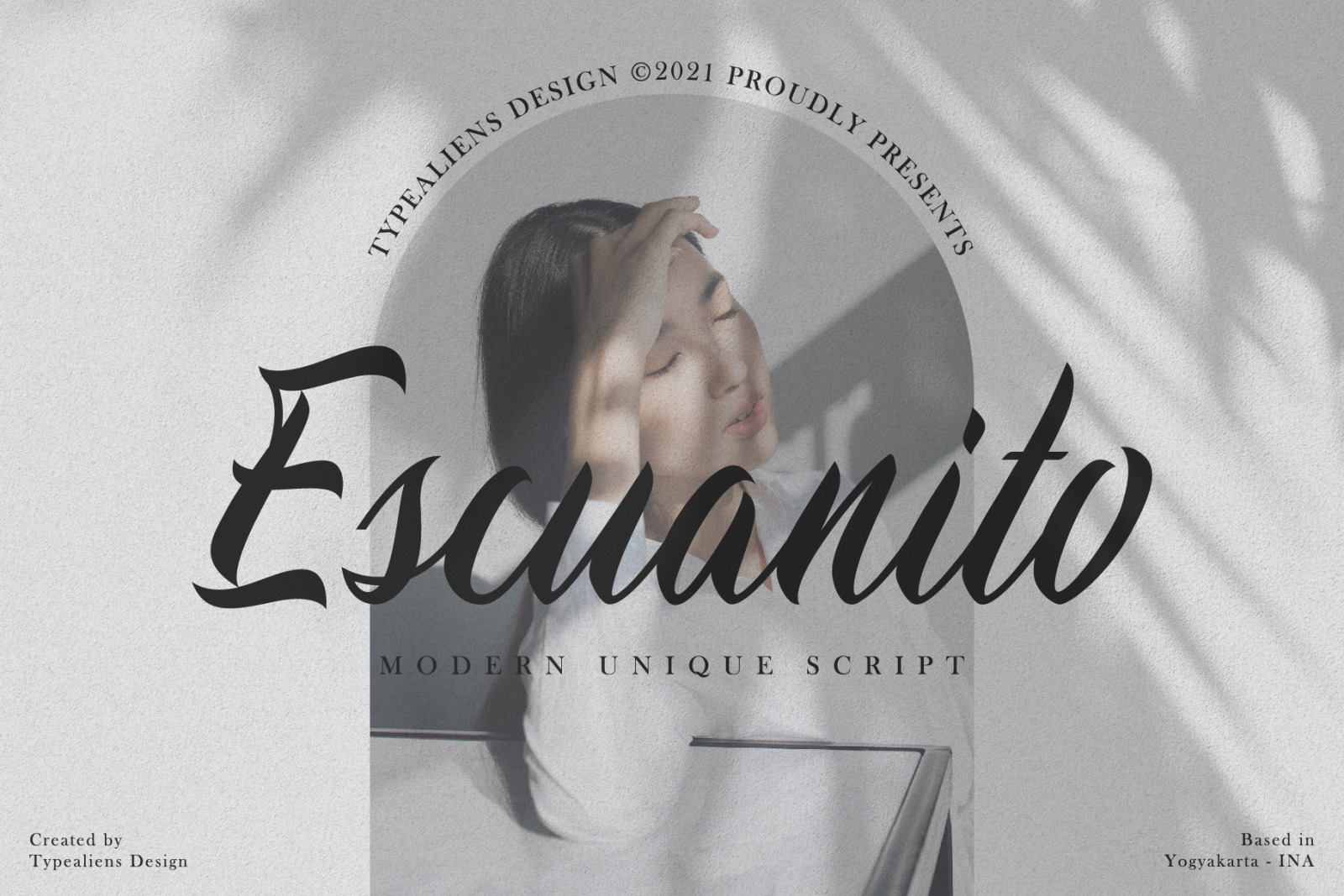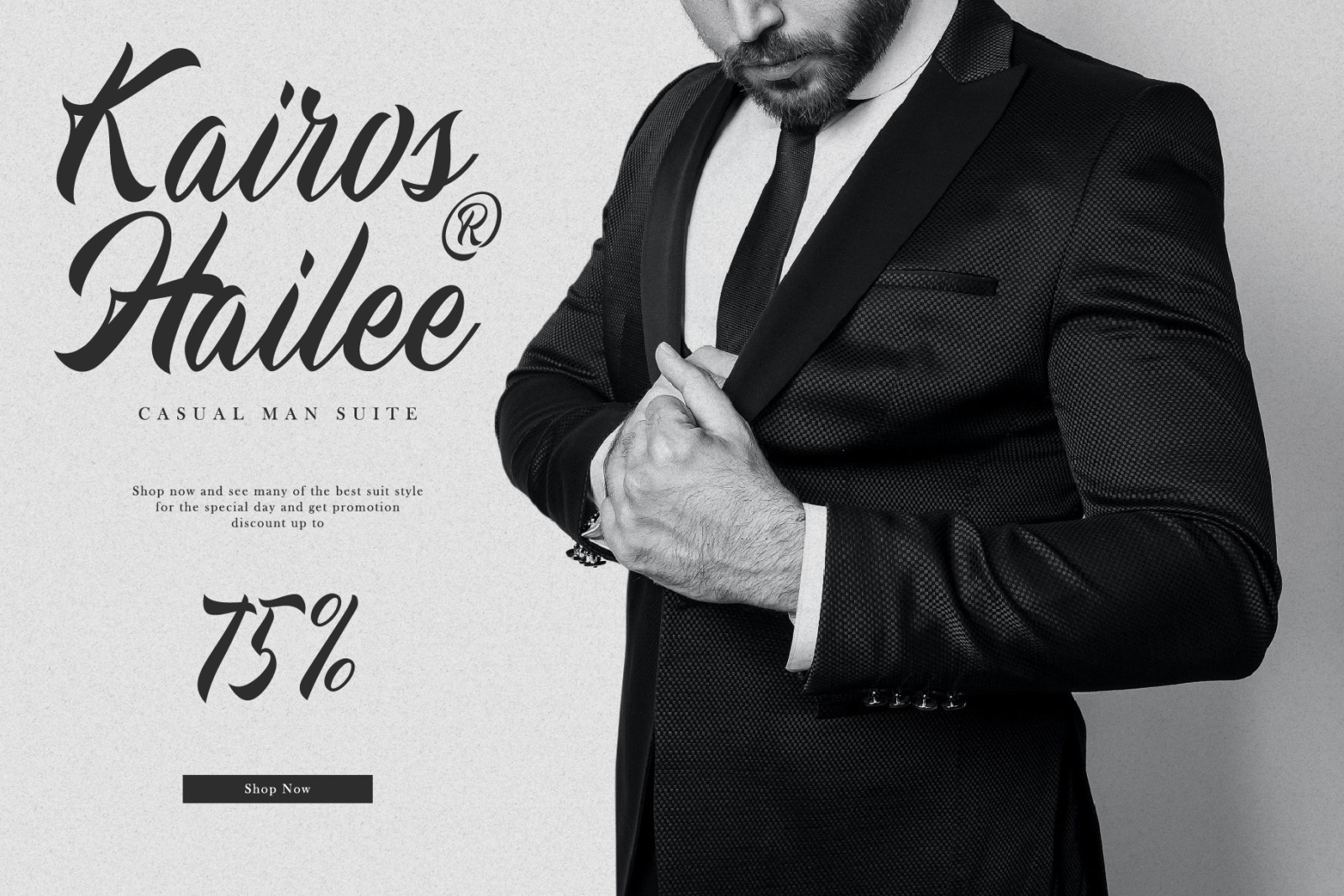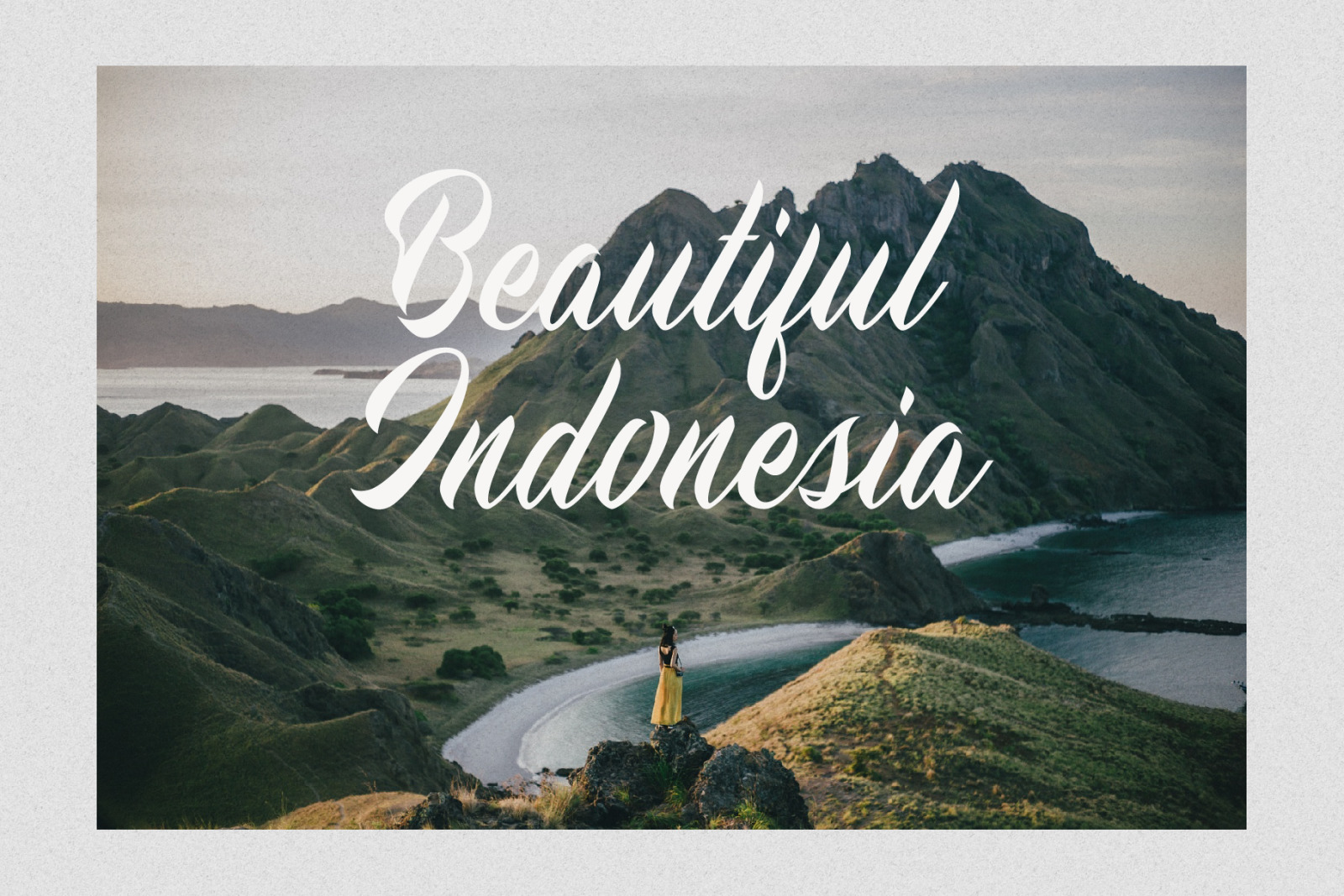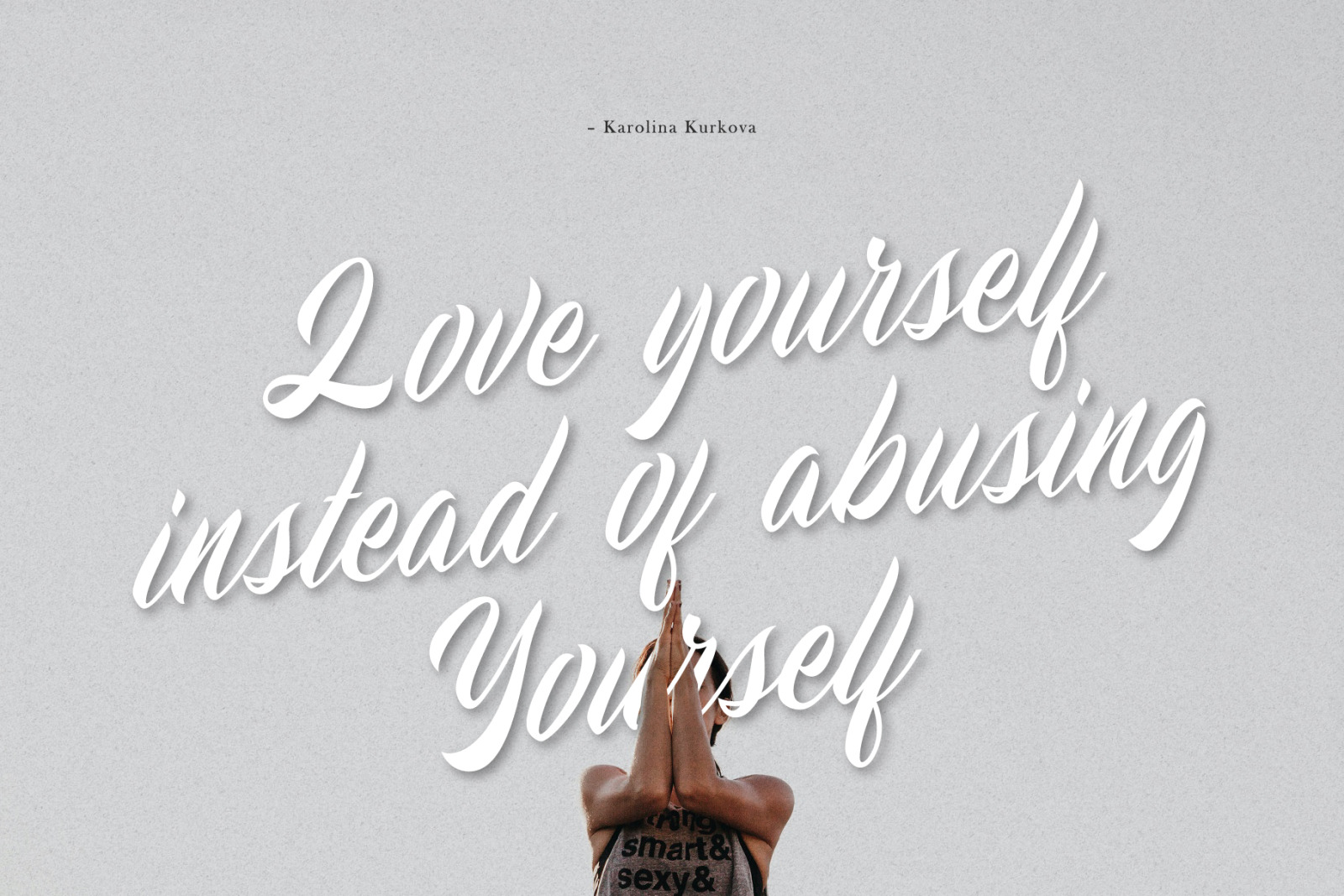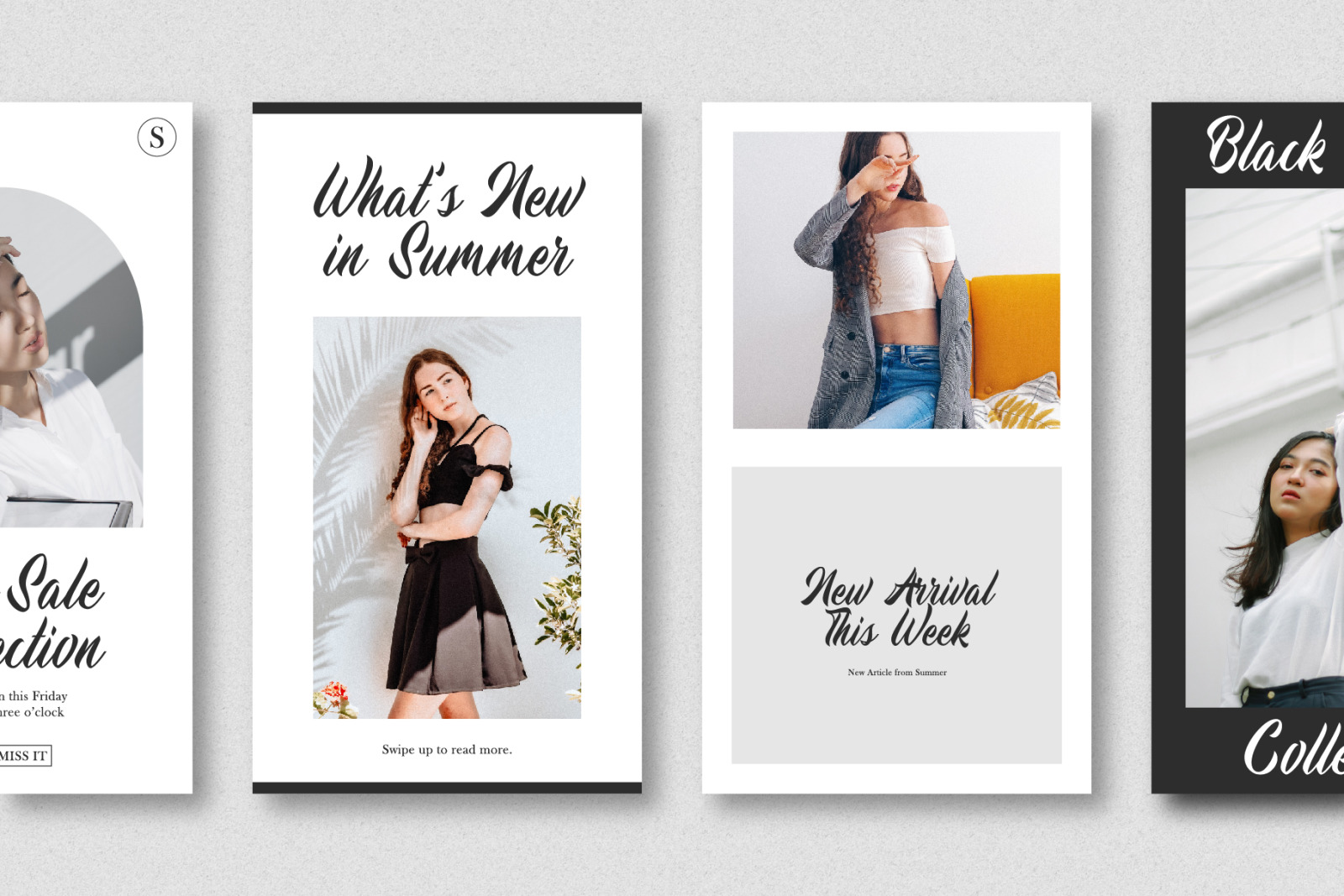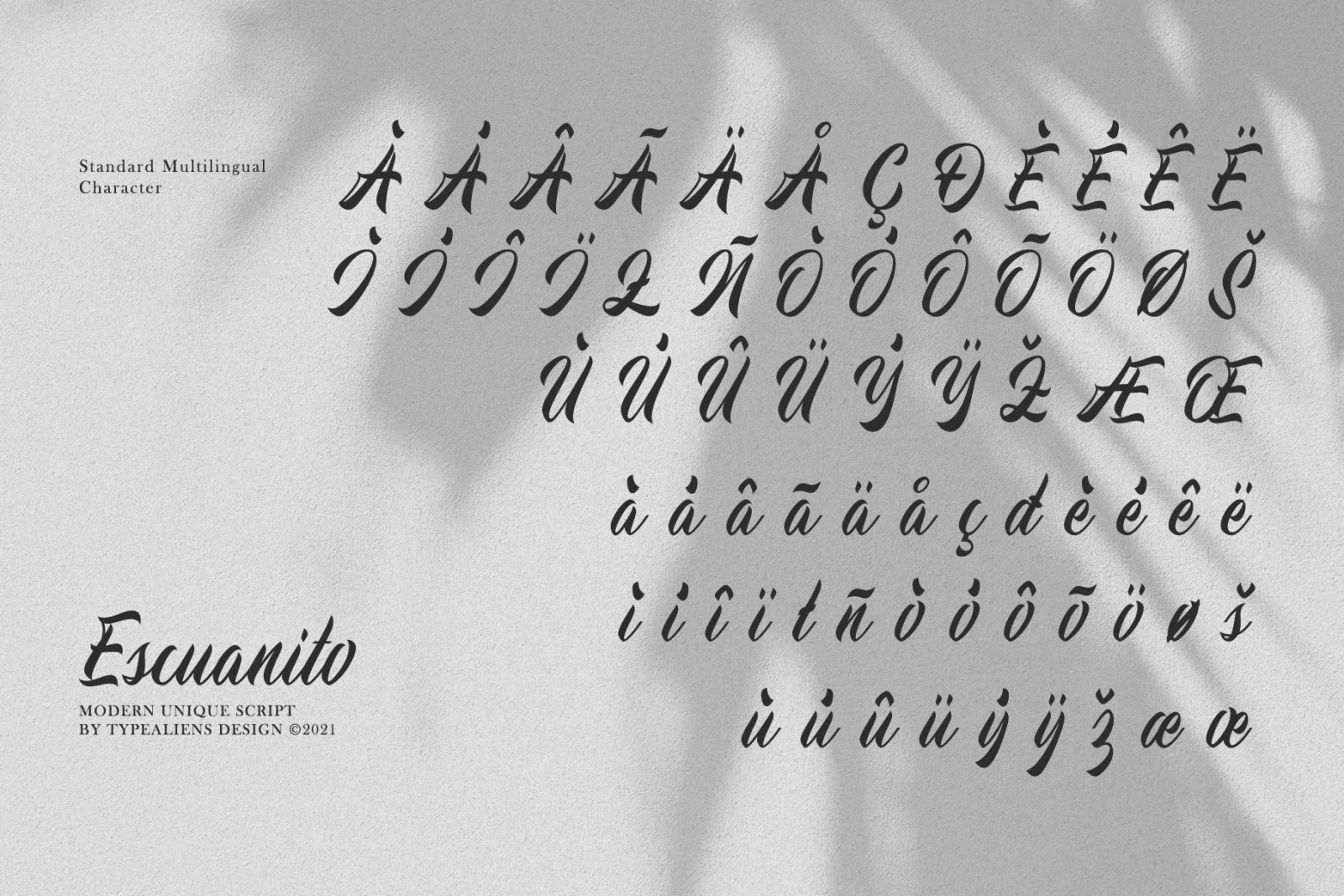
Escuanito Font
ESCUANITO is a script font resulting from calligraphy using a pen brush. Has a fairly sharp stroke at the end but still elegant for modern designs in branding, social media and for weddings.